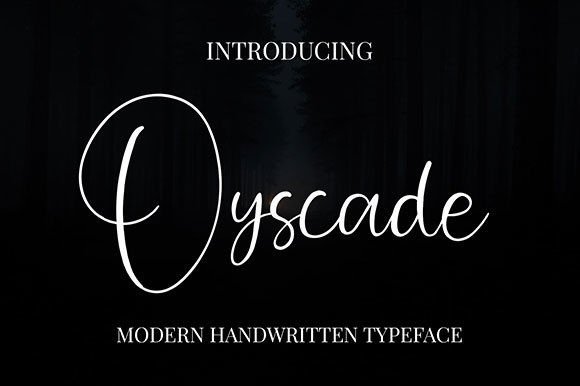
Behold the Enchanting Oyscade Script Font, an Exquisite Embellishment for Your Creative Journey!
Immerse yourself in the world of Oyscade, a captivating script font that will elevate your designs to new heights of elegance and charm. Crafted with intricate details and sweeping strokes, this font will add a touch of magic to any project you undertake.
Unleash the boundless creative potential of Oyscade, a script font that is as versatile as it is beautiful. Whether you're creating enchanting quotes, designing eye-catching logos, or crafting personalized invitations, Oyscade will bring your ideas to life with its captivating presence.
Step into the realm of festive cheer with Oyscade, the perfect font for capturing the essence of Christmas. From heartfelt letters to loved ones to stunning holiday cards, Oyscade will transform your words into works of art, spreading warmth and joy wherever they go.
Experience the artistry of chatype studio, the creative powerhouse behind Oyscade. With a passion for creating fonts that captivate and inspire, chatype studio has bestowed upon us this gem, a font that is both timeless and contemporary, a true reflection of their dedication to excellence.
Embark on a creative odyssey with Oyscade, where your imagination knows no bounds. Let the flowing lines and graceful curves guide you as you craft designs that are as unique as you are. Oyscade is more than just a font; it's a gateway to a world of creativity waiting to be explored.